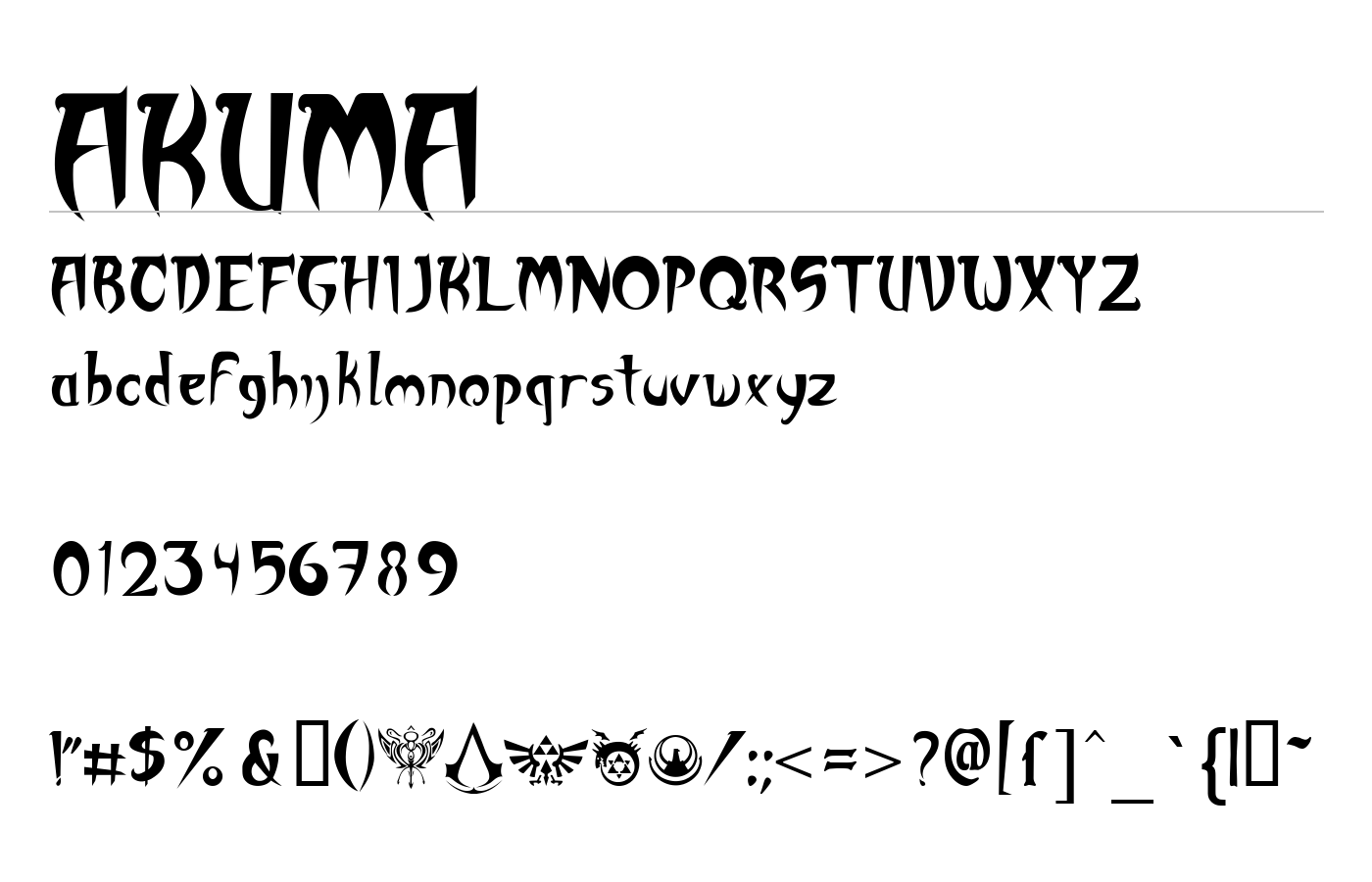
AKUMA is a bold, decorative serif font with sharp, dramatic strokes and stylized serifs that give it a dark, edgy character. Its distinct pointed terminals and unique letterforms evoke a gothic or fantasy vibe, making it ideal for striking headlines, logos, or creative projects that want to convey intensity and mystery. This font stands out best in display uses where its elaborate design can be fully appreciated.
AKUMA Font